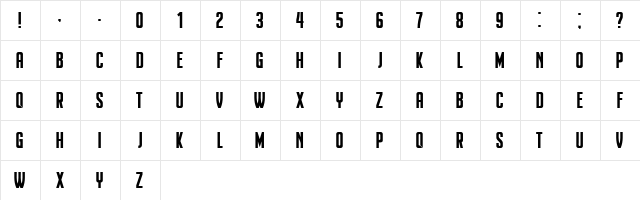
Heinrich Regular
Design Context for Heinrich Typeface
Heinrich takes a measured approach to typography — its balanced proportions and neutral character make it a reliable workhorse for both digital and print work.